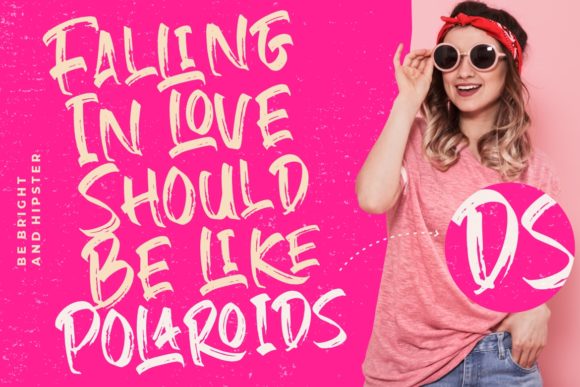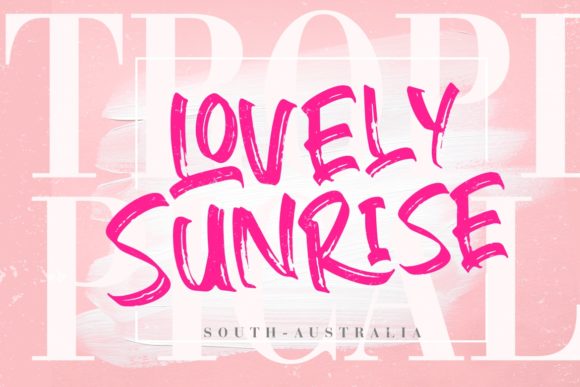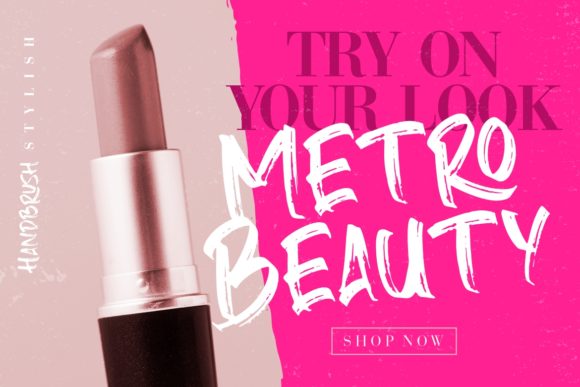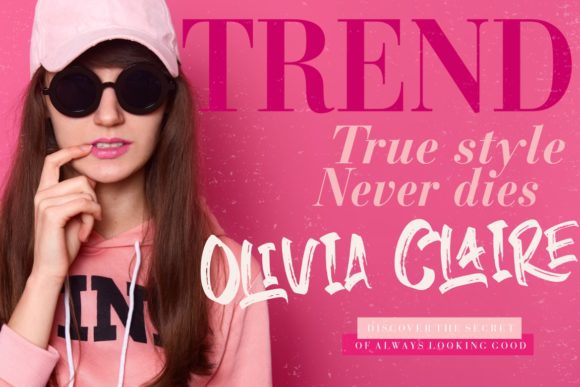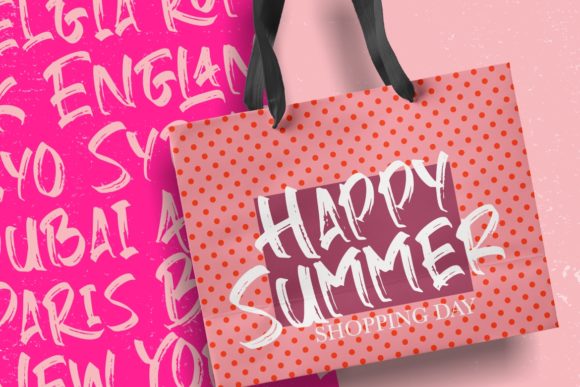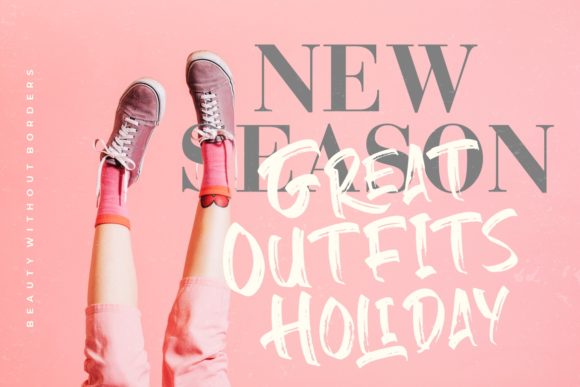
Introducing Gebrush Font: The Perfect Addition to Your Crafting Projects
Are you a designer or crafter looking for a unique and personalized touch for your projects? Look no further than the Gebrush font! This bold and fun handwritten font is perfect for adding a touch of personality to any crafting project. In this article, we’ll take a closer look at the Gebrush font, its features, and how you can use it to take your crafting projects to the next level.
What is Gebrush Font?
Gebrush is a bold and fun handwritten font that is designed to add a personal touch to your crafting projects. Its unique and playful style makes it perfect for a variety of projects, from DIY crafts to commercial designs. Whether you’re creating invitations, signs, or other materials, the Gebrush font is sure to make your project stand out.
Key Features of Gebrush Font
So, what makes the Gebrush font so special? Here are just a few of its key features:
- Bold and Fun Handwritten Style: The Gebrush font has a bold and playful style that is sure to add a touch of personality to your projects.
- PUA Encoded: The Gebrush font is PUA (Private Use Area) encoded, which means that you can access all of the glyphs and swashes with ease. This makes it easy to customize your projects and add unique touches.
Benefits of Using Gebrush Font
So, why should you choose the Gebrush font for your crafting projects? Here are just a few benefits:
- Adds a Personal Touch: The Gebrush font adds a unique and personal touch to your projects, making them stand out from the crowd.
- Versatile: The Gebrush font is versatile and can be used for a variety of projects, from DIY crafts to commercial designs.
- Easy to Customize: With its PUA encoding, the Gebrush font is easy to customize, allowing you to add unique touches to your projects.
Tips and Tricks for Using Gebrush Font
Here are a few tips and tricks to help you get the most out of the Gebrush font:
- Experiment with Different Sizes: Experiment with different sizes and styles to find the perfect look for your project.
- Combine with Other Fonts: Combine the Gebrush font with other fonts for a unique and interesting look.
- Use for Headings and Titles: Use the Gebrush font for headings and titles to add a bold and playful touch.